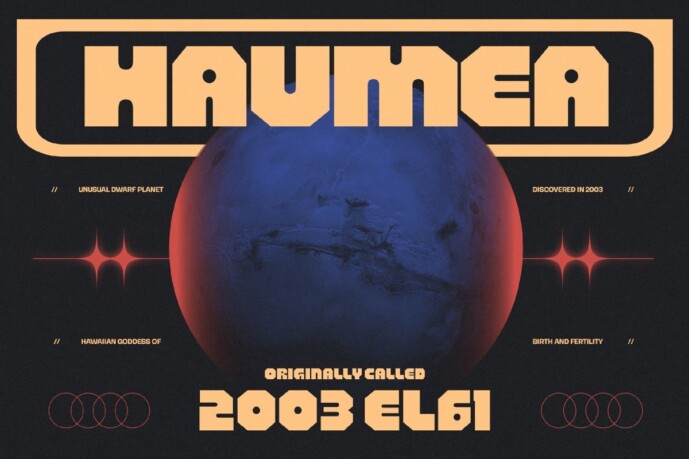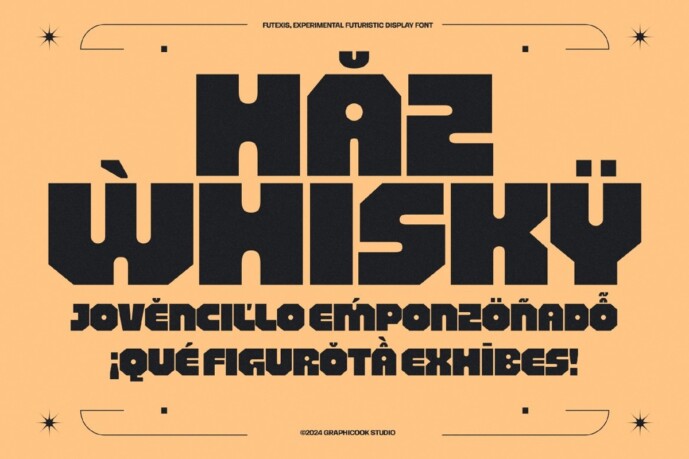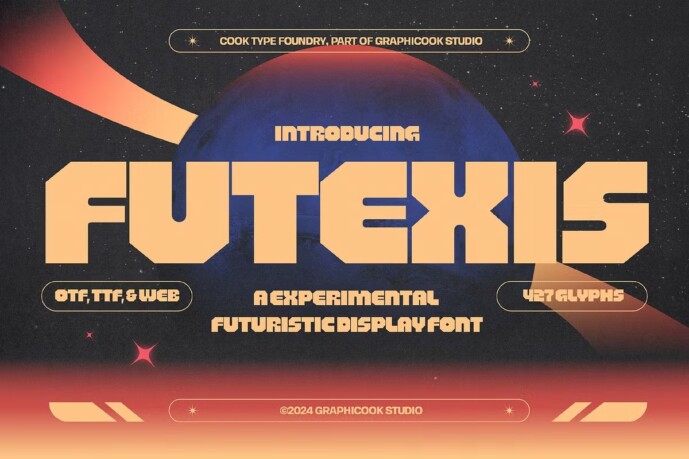
Futexis Font
Futexis Font! Experimental font that embodies a futuristic style, making it truly stand out. This font is perfect for album cover, poster, apparel or packaging.
Futexis is perfect for headlines, logotypes, magazines, packaging, quotes, movies, games, cover albums, book covers, and flyers, it’s a perfect solution for creating eye-catching designs that stand out in any context.